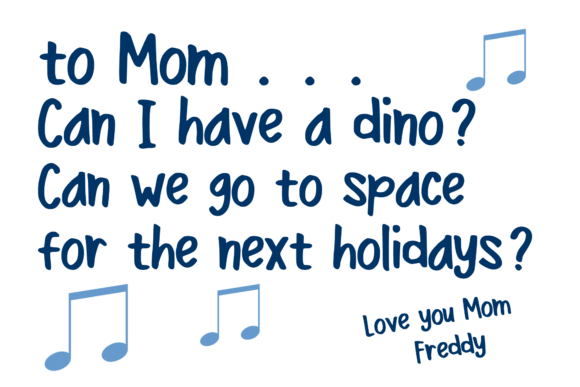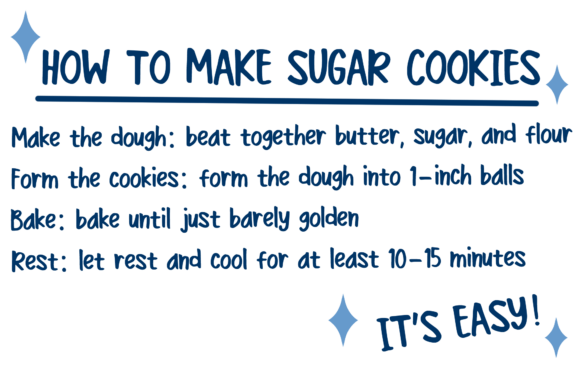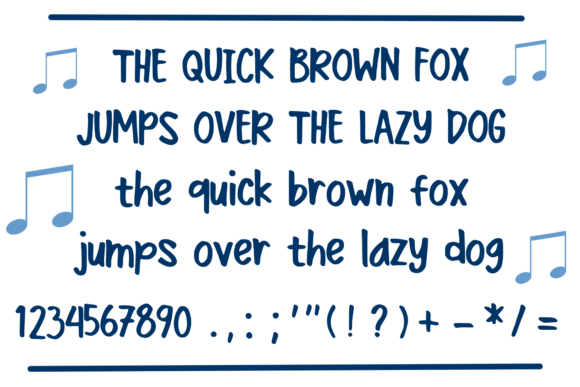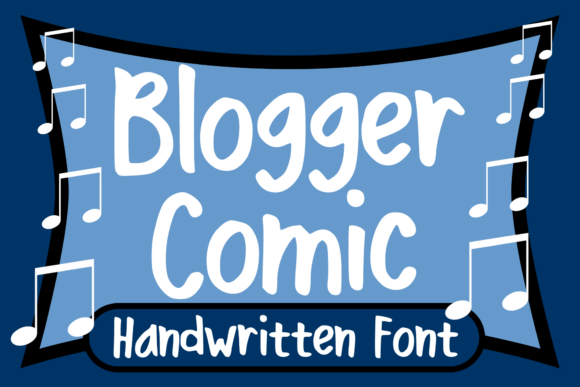
Blogger Comic Font: Add a Fun and Versatile Touch to Your Designs
Are you looking for a font that can add a playful and spontaneous touch to your designs? Look no further than the Blogger Comic Font! This fun and versatile handwritten font is perfect for a wide range of design projects, from t-shirts and clothing to book designs, street art, greeting cards, stickers, posters, banners, and more.
What is Blogger Comic Font?
Blogger Comic Font is a unique and eye-catching font that is designed to add a bold and fun touch to your designs. Its spontaneous handwritten style gives it a carefree and playful feel that is sure to grab attention. Whether you’re a designer, crafter, or DIY enthusiast, this font is perfect for anyone looking to add a personal and creative touch to their projects.
Uses for Blogger Comic Font
The possibilities are endless when it comes to using Blogger Comic Font! Here are just a few ideas to get you started:
- T-shirts and clothing: Add a fun and playful touch to your apparel designs with this bold and eye-catching font.
- Book designs: Use Blogger Comic Font to create eye-catching titles, headings, and illustrations for your book projects.
- Street art: Add a bold and playful touch to your street art designs with this fun and versatile font.
- Greeting cards: Create fun and playful greeting cards for special occasions like birthdays, holidays, and more.
- Stickers and posters: Use Blogger Comic Font to create eye-catching stickers and posters that are sure to grab attention.
- Banners: Add a fun and playful touch to your banners with this bold and versatile font.
Why Choose Blogger Comic Font?
So why choose Blogger Comic Font for your design projects? Here are just a few reasons:
- Unique and eye-catching: This font is sure to grab attention with its bold and playful style.
- Versatile: Blogger Comic Font can be used for a wide range of design projects, from t-shirts and clothing to book designs and street art.
- Fun and playful: Blogger Comic Font adds a fun and playful touch to any design project, making it perfect for anyone looking to create a bold and eye-catching design.
Tips for Using Blogger Comic Font
Here are a few tips for getting the most out of Blogger Comic Font:
- Experiment with different colors: Try pairing Blogger Comic Font with different colors to create a unique and eye-catching design.
- Play with font sizes: Experiment with different font sizes to create a bold and playful design.
- Combine with other fonts: Try pairing Blogger Comic Font with other fonts to create a unique and interesting design.
- Use it sparingly: While Blogger Comic Font is a fun and playful font, it can be overwhelming if used too much. Try using it sparingly to create a bold and eye-catching design.
In conclusion, Blogger Comic Font is a fun and versatile handwritten font that is perfect for a wide range of design projects. Its bold and playful style makes it perfect for adding a fun and eye-catching touch to any design. Whether you’re a designer, crafter, or DIY enthusiast, this font is sure to become a favorite in your design arsenal. So why wait? Try Blogger Comic Font today and add a fun and playful touch to your designs!